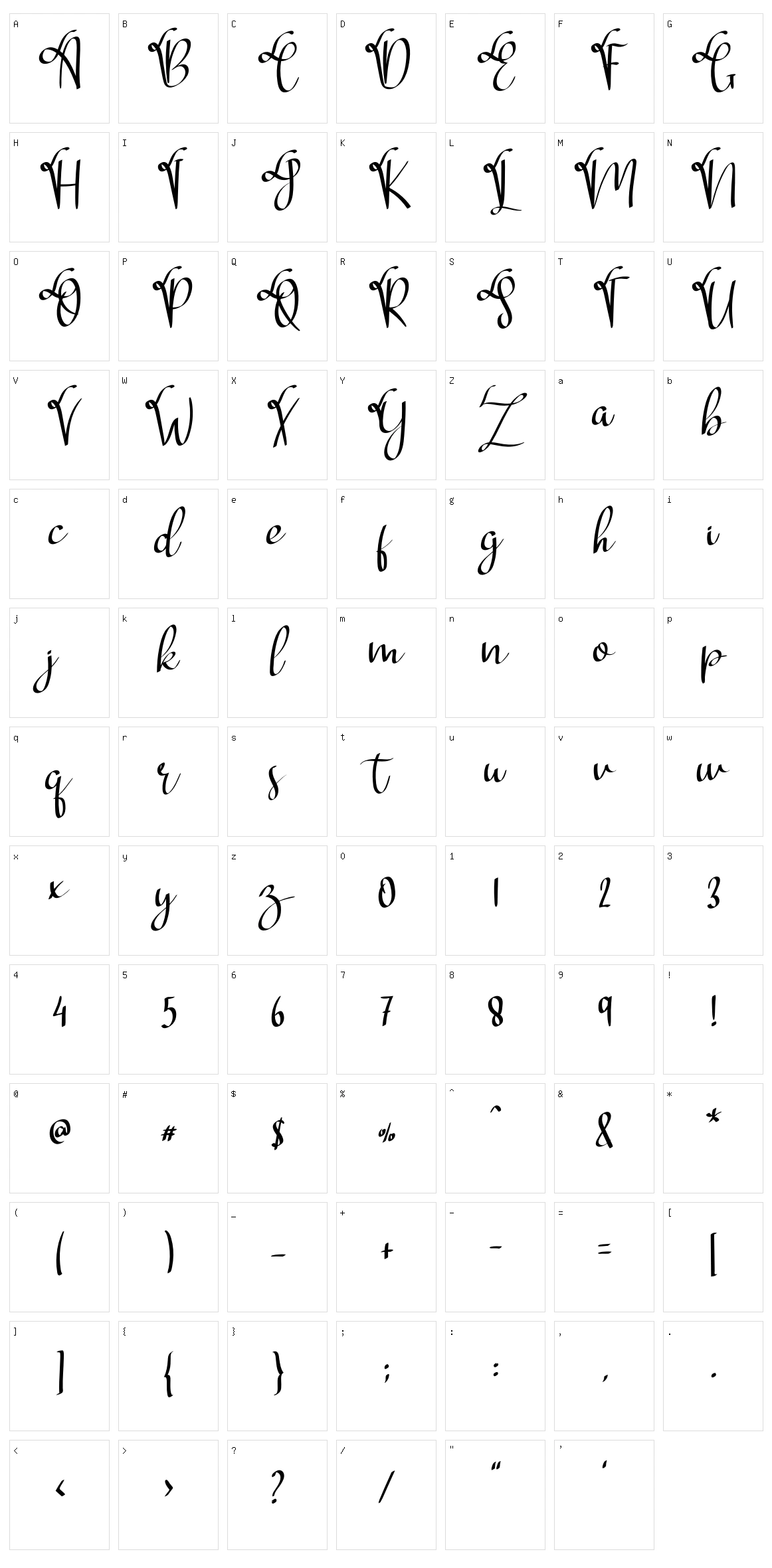
The free font Bahagia Jarah is carefully designed by Belina Studio, showcasing a thoughtful balance of creativity and usability and falls under the Script font style. When you download the ZIP file, it contains only 56.32 KB of font files, making it lightweight and quick to download. Please review the license details below to understand permitted usage and distribution rights. If license information is not available, we recommend using this font for personal projects only or contacting the author directly for commercial usage permissions.